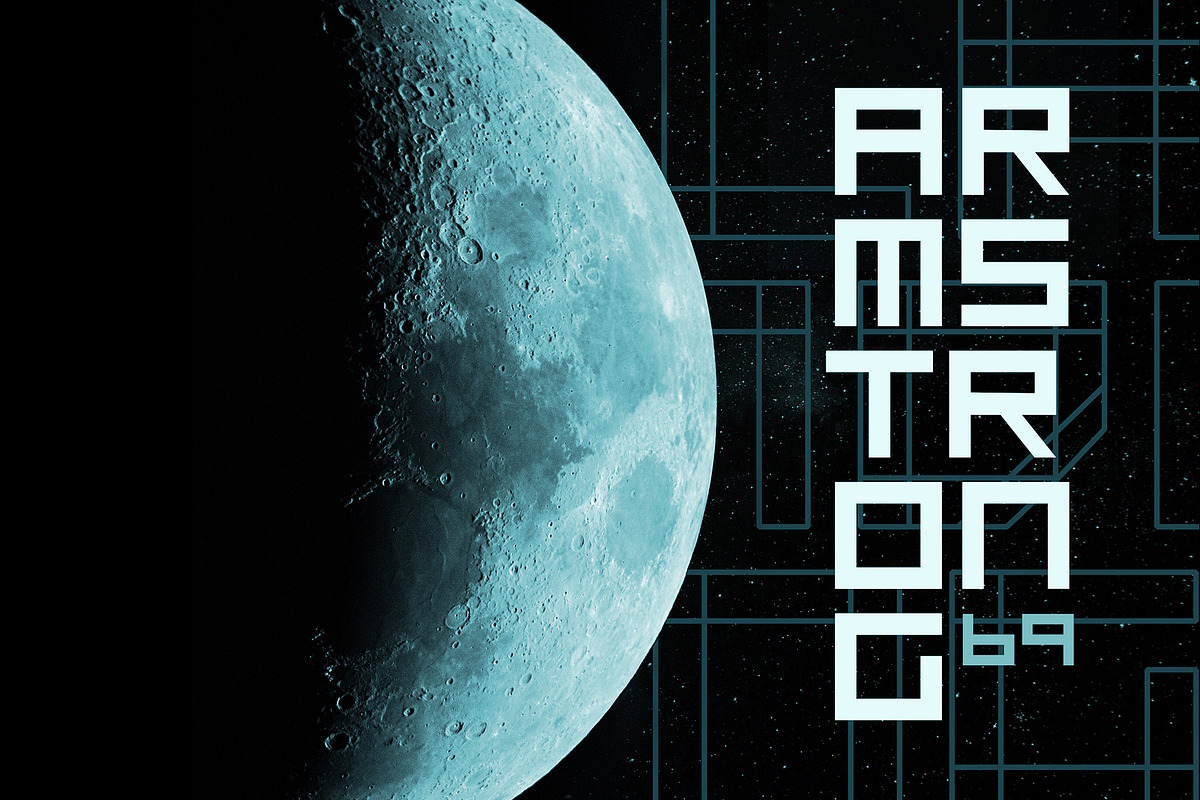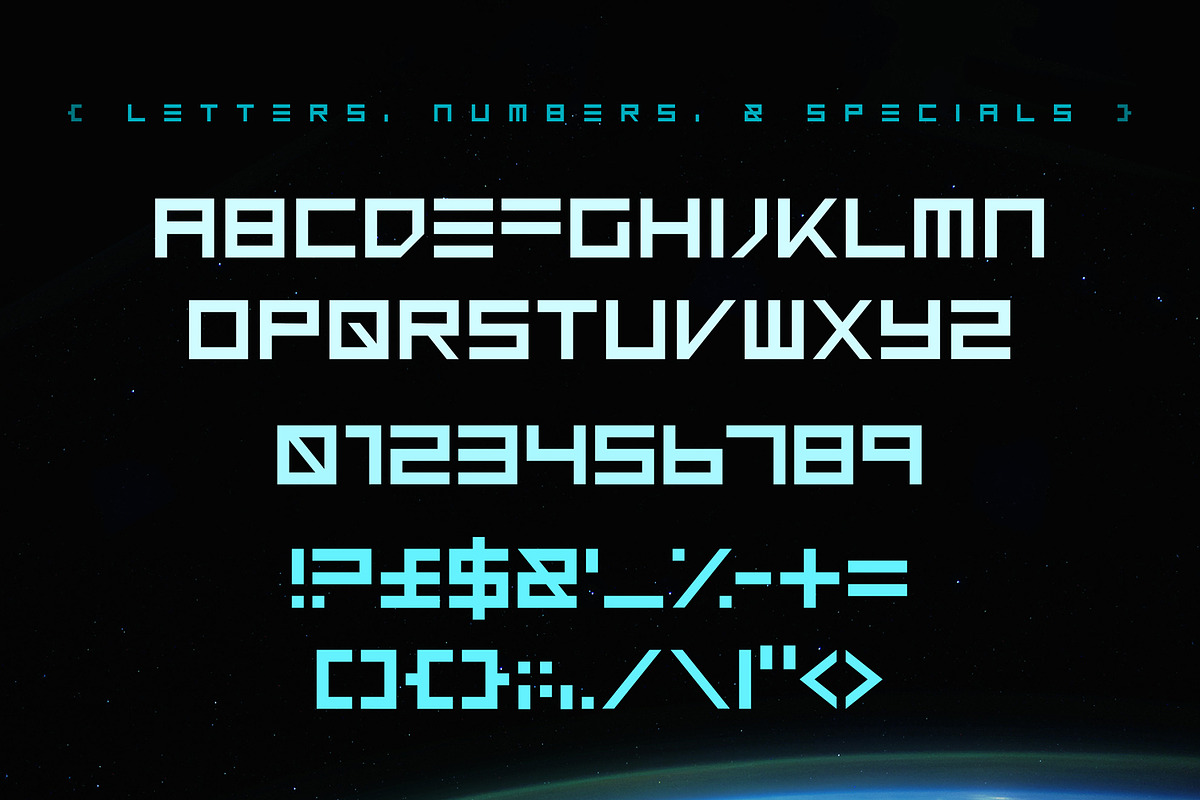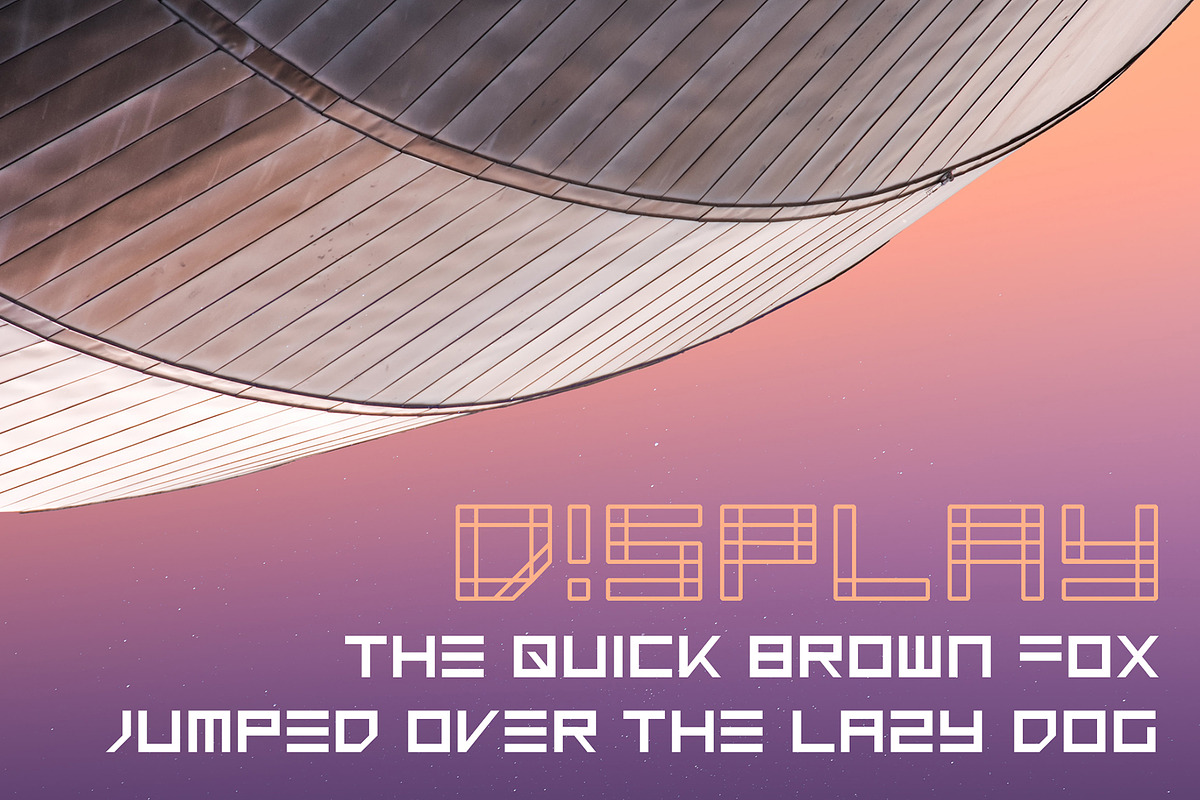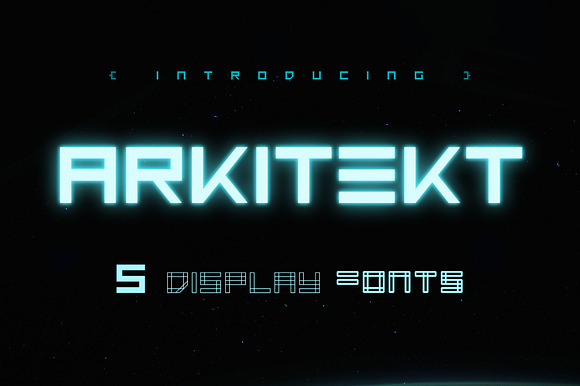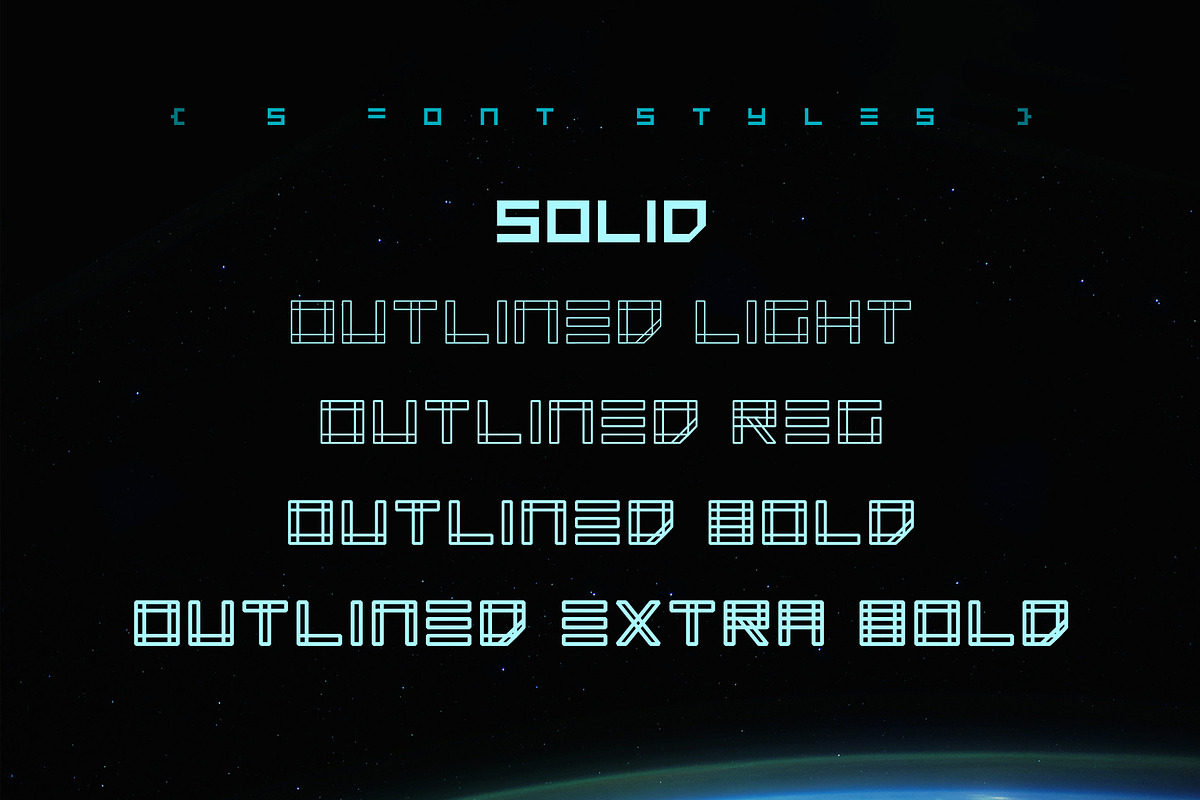
Arkitekt typeface, five fonts
Arkitekt is a sci-fi style font, that works well for titles, headlines, and large texts in general.
Perfect for technology, sci-fi, science and all kinds of futuristic projects. Create science fiction posters & flyers, website headers, high-tech logos and so much more!
Five font variations are included.
Glyphs included: Letters from A to Z, numbers from 0 to 9, and a few other punctuation glyphs (see pictures for a preview of all the glyphs).
- All fonts are in uppercase/all caps.
- Arkitekt Outline Light
- Arkitekt Outline Regular
- Arkitekt Regular
- Arkitekt Outline Bold
- Arkitekt Outline Extra Bold